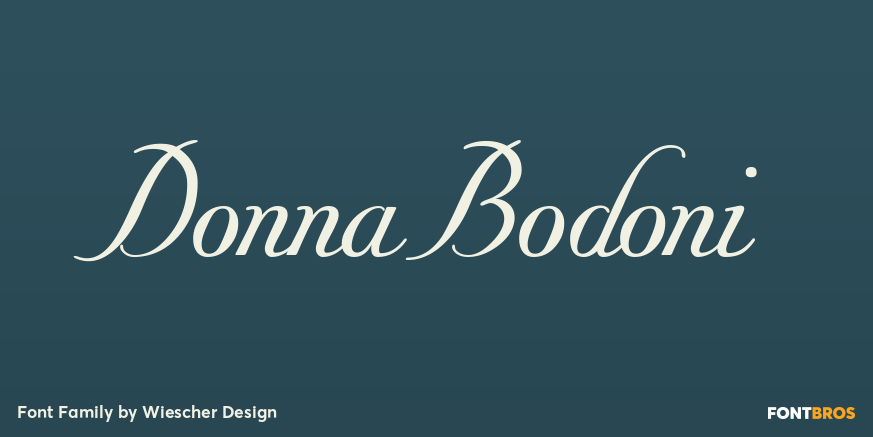
Donna Bodoni
About Donna Bodoni
DonnaBodoni was inspired by David Farey. He once wrote, somebody should honor the widow of Giambattista Bodoni the brave Signora Paola Margherita Dall \’Aglio for her effort to have the Manuale tipografico di Giambattista Bodoni published after his dead.…